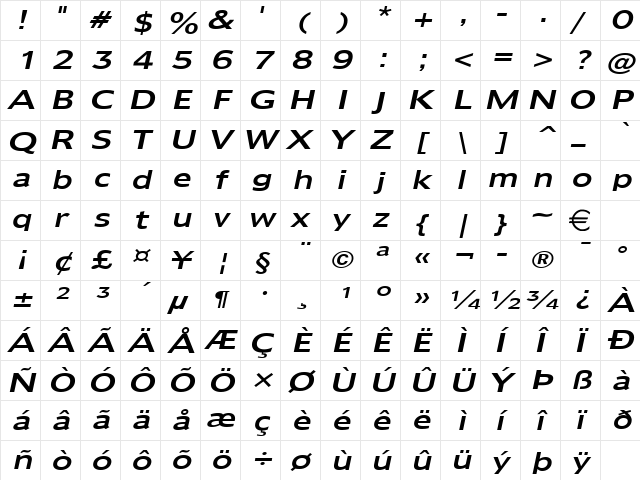
AdamsWide Italic
AdamsWide takes a measured approach to typography — its balanced proportions and neutral character make it a reliable workhorse for both digital and print work. The slanted form adds forward momentum and visual energy.